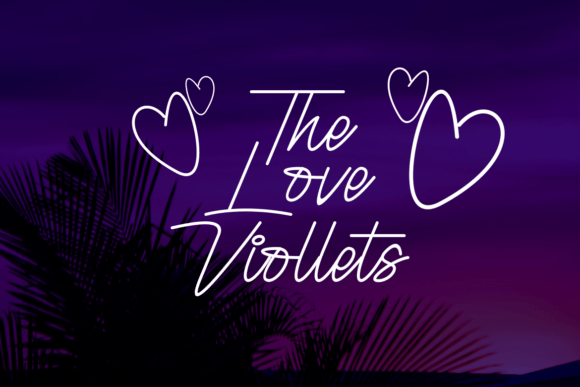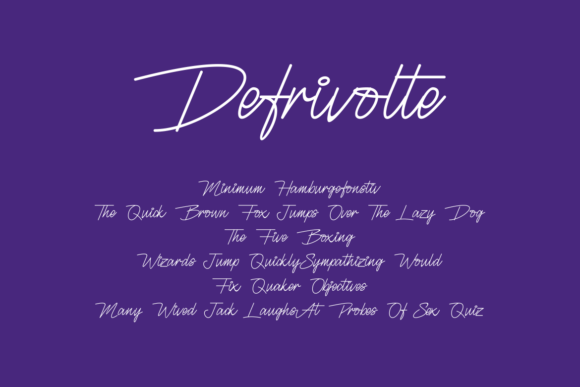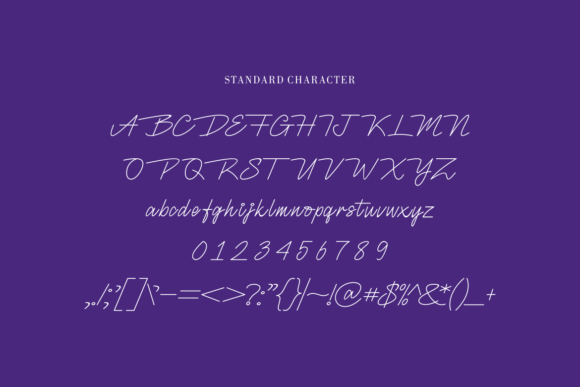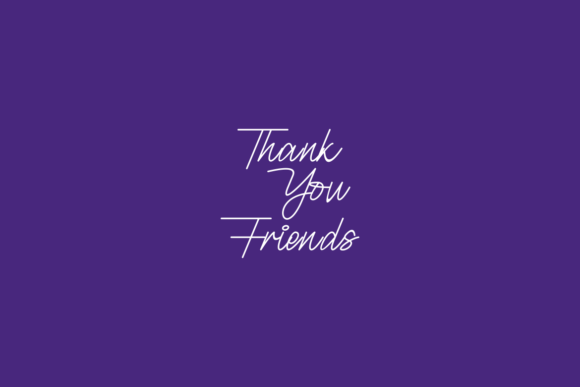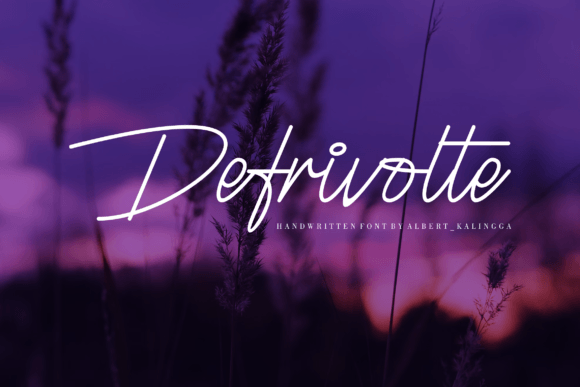
Introducing Defrivolte Font: Elevate Your Designs with Elegance and Charm
In the world of typography, fonts play a crucial role in conveying the tone and personality of a brand, product, or creative project. For designers and crafters seeking a stylish and sophisticated touch, Defrivolte Font is an exceptional choice. This beautiful handwritten font seamlessly blends elegance with a personal touch, making it perfect for a wide range of applications, from chic branding and elegant invitations to fashionable editorial designs.
The Unique Characteristics of Defrivolte Font
Defrivolte Font boasts fluid, graceful strokes that dance across the page, imbuing any design with a sense of refinement and poise. Its sophisticated character is evident in every curve and line, making it an ideal choice for designers who aim to create a lasting impression. Whether you’re working on a luxury brand identity, a wedding invitation, or a high-end fashion editorial, Defrivolte Font is sure to elevate your project with its refined beauty and charm.
Key Features of Defrivolte Font
- Handwritten Elegance: Defrivolte Font is a carefully crafted handwritten font that exudes elegance and sophistication.
- Fluid Strokes: The font’s fluid strokes create a sense of movement and fluidity, adding a touch of dynamism to any design.
- Personal Touch: Defrivolte Font’s unique character ensures that your designs stand out from the crowd, conveying a sense of personality and individuality.
- Versatility: This font is suitable for a wide range of applications, including branding, invitations, editorial designs, and more.
Applications of Defrivolte Font
Defrivolte Font’s versatility makes it an excellent choice for various design projects. Here are some of the ways you can use this beautiful font:
- Branding: Create a luxurious brand identity with Defrivolte Font, perfect for high-end fashion, beauty, or lifestyle brands.
- Invitations: Make a statement with elegant wedding invitations, birthday invitations, or any other special occasion.
- Editorial Design: Elevate your fashion editorials, magazines, or blog designs with the refined beauty of Defrivolte Font.
- Packaging: Add a touch of sophistication to your product packaging with this stylish font.
Why Choose Defrivolte Font?
With so many fonts available, why choose Defrivolte Font? Here are a few compelling reasons:
- Unique Character: Defrivolte Font’s distinctive character ensures that your designs stand out from the crowd.
- Elegance and Sophistication: This font exudes refinement and poise, making it perfect for high-end designs.
- Easy to Read: Despite its elegant nature, Defrivolte Font remains easy to read, making it suitable for body text and headlines.
Defrivolte Font is a stunning handwritten font that offers a perfect blend of elegance and personality. Its fluid strokes, sophisticated character, and versatility make it an excellent choice for designers and crafters seeking to elevate their projects. Whether you’re working on a luxury brand identity, an elegant invitation, or a fashionable editorial design, Defrivolte Font is sure to add a touch of refined beauty and charm. Discover the possibilities of Defrivolte Font and take your designs to the next level.